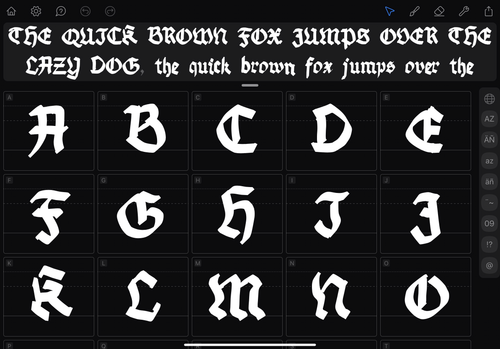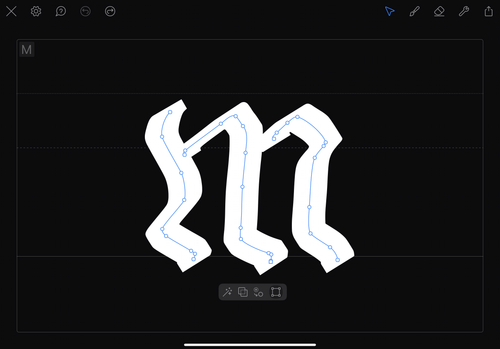
Q&A Fontself
It seemed interesting to us to make you discover the profiles of our guests. Discover Franz Hoffman & Francis Chouquet’s interview.
Franz Hoffman is a designer-turned-entrepreneur and cofounder of Fontself — born from Hoffman's belief that typography is a powerful medium that should be democratized. As a creative who was frustrated by the complexity of typographic tools, Franz started an independent research project in 2005 to explore how modern software and new graphic technologies could better serve the needs of other designers.
Francis Chouquet is a type designer and lettering artist whose everyday work focuses on typographic illustrations for outdoor, sport and mental health apparel. He draws on influences from American lettering styles from the 40’s to the 70’s, with an emphasis on joyful, funky, and deconstructed forms.
Interview
What does a usual day look like for you?
Franz Hoffman A couple minutes of breathing exercise to slowly activate each part of the body. A small trick to get started without rushing straight into the day. The first and the last parts of the day are usually checking user requests on the support channels: I just love having these daily conversations with our user community. As for the rest of the day, I don’t have any routine (I actually loath routines) Not the most productive way to work, but I learned to just “vibe working”: doing whatever seems right at whatever time.
Francis Chouquet I need a coffee first and then I go for a small hike with my dog. The first thing I do is create. I am most creative in the morning, so I take the first part of the day for me, for being creative. So I draw or I paint. But no computer involved. Then, around 11AM, I check emails and social medias and spend the rest of the day on different projects.
How would you describe your style of working?
Francis Chouquet I try to not work from home because it mixes personal and pro life. So I have a studio and sometimes I also go in town to cafés. It feels a bit like socialising) I do listen to music a lot while working and my favourite musics will be jazz and ambient electronic music. It really helps me to be in the zone. I prefer working by myself because I can control every stage of a design. But having good feedback or input on the work I do is really important too.
Franz Hoffman I like complete freedom: that's the best set up for me. I can't help but to switch from a desk in my home office to the kitchen table, or even lay my laptop on the floor in the living room, and then go brainstorming by walking in the forest next to my place. I don't mind working in bars or trains either, as the surrounding noise creates a bubble in which I can totally focus. I usually listen to music whenever I need to go into the creative flow, specially for visual design. Electro-rock, electro-punk or wtf songs are usually my fav picks.
“Every tool has its own intended purpose, but we believe that creatives can be actually quite imaginative in how they use or subvert various tools to create their own typefaces.”‍
– Franz Hoffman
What do you do to step away from work?
Franz Hoffman Cooking for family & friends, martial arts & freeform dancing are vital to me to power the body, the mind & the spirit.
Francis Chouquet Oh yeah, I have to step away every day, I go hiking, I run a lot, but mostly I try to spend a maximum of time in nature.
What drives you to create new typefaces or lettering work?
Francis Chouquet Something fun to do. If I see a nice lettering work, something a bit special, I want to try to turn it into a font. And make special things like ligatures, different character sets, etc.
Franz Hoffman So our goal at Fontself is simply to help anyone who wants to turn their individual qualities into a unique typeface. This is an infinite pool of creative content, and with my cofounder Mohamed Ghenania, we dedicate our work to unearth it with this beautiful medium that is typography.
Francis Chouquet, key screens of the Fontself application, © Fontself
Do you ever feel “too comfortable” with your work?
Francis Chouquet Oh no, I never feel too comfortable, I try to be as much as I can in a zone where I feel confident enough to do a good work but where I can also try new things. I have doing the same things all over again.
Do you find social media or other information sources to be useful for your own creative process?
Francis Chouquet I try to avoid checking the news because it makes my anxiety raise. Over the time I also learned to focus on my own work and not get disturbed creatively by trends on social medias. But I check my Instagram timeline daily and bookmark everything that could inspire me. I closed my Twitter account recently and just use Instagram even if lately I tend to not post that much. The link between my community and me seems a bit broken due to the constant change of algorithms. So now I focus more on my newsletter which is on Substack. It gives me a window to give news but also and mostly share my process and thoughts.
Franz Hoffman I try stay away from mainstream media like TV, online shows or social media (not easy one) and try to favor books and long-form articles that provide more depth, to get into the weeds of things. Social media platforms have broken their promise over the years so we are far less active nowadays both professionally and personally. As it's now a constant race to capture attention, we prefer focusing our efforts on our users needs, and to ensure they can truly enjoy an app that they would wanna recommend to their friends.
In what ways do you see the type market evolving today?
Francis Chouquet To me, it seems that the lettering market felt down in the recent years. The trend is a bit over. I still have many projects in outdoor industry but overall it is not as good as it used to be, 7 or 8 years ago. And for fonts, I feel like the market is saturated with choice. And with subscriptions like Adobe Fonts, it is difficult to indépendant foundries to thrive.
Franz Hoffman As more and more people can start crafting their own fonts, we believe there could be a Renaissance in DIY typefaces, not only in terms of shapes, but also for new use cases.
Are you rather one of those who draw or redraw type classics, or those who seek to totally invent new forms?
Francis Chouquet I don’t do type classics. I prefer experiment new forms and shapes. Try things weird. And see if it works. I am more of an artist so yes, it is all about experimenting new things.
How do software tools and their rules shape type design today? Do you think AI will change this?
Francis Chouquet Software are just tools to me. I use mostly Fontself (iPad and Illustrator) and Glyphs. And with that combination, it gives me enough freedom to do what I want to do. I don’t think I have the knowledge on AI yet to see how it will impact our jobs.
Franz Hoffman Every tool has its own intended purpose but we believe that creatives can be actually quite imaginative in how they use or subvert various tools to create their own typefaces. Fontself was actually created because we wanted simpler tools that could mimic a more intuitive workflow. But it turned out the people crafted a wider range of typeface designs than we initially thought. AI will change any creative process and type-making won’t be spared by automation, so it's difficult to know how value perception will evolve as well. But crafts, taste and curation will definitely matter in your world where everything is possible, all at once. And as font discovery and distribution will be just as critical as they are today to value content, the story behind each font might become a stronger differentiator in a crowded AI-saturated market.
How can type designers and font software developers influence each other?
Franz Hoffman Professional type designers and consumers have very different needs so we don't believe there’s a one-size-fits-all in terms of font editing software. They are actually even different niches among each audience which could advocate for a wider variety of dedicated font creation tools, but the common challenge is how do you make them financially viable.
Francis Chouquet Working with Fontself, their iPad app really changed many things to me and opened the idea to create a font to many more people. This is really a game changer. It can be useful to type designers in order to start projects, sketching and be a good tool for graphic designers to create handmade fonts for client projects or for side revenues.
Any particular standout projects for specific clients or areas of interest?
Franz Hoffman Some of the most fulfilling projects we've seen from our customers range from personal fonts designed for a single private use like a birthday present, to alien fonts for indie sci-fi novels, typefaces for some Marvel Comics, blockbuster movies, or even social workers who designed custom fonts with teenagers. We’ve also been lucky to take part into impactful projects for the community at large, from the Gilbert font to helping design schools that worked on dyslexia-friendly fonts.
Francis Chouquet I am really involved with the outdoor industry and I love to work with companies on lettering projects where I can share my love for Nature and how it can be important nowadays for our mental health
“Working with Fontself, their iPad app really changed many things to me and opened the idea to create a font to many more people. This is really a game changer.“
– Francis Chouquet
Image courtesy of @jimboberrnaus
What made you choose to pursue a career in design?
Franz Hoffman When I discovered a book about the Bauhaus: it felt amazing to learn that folks had dared combining problem-solving design with fine arts, photography or danse within a tight community. That open-minded approach to anything related to graphic, architecture or physical design was the radical vision that I was looking for in a professional career.
Francis Chouquet As many people, I did draw a lot when I was a kid so it made it logical to pursue a career in that direction.
Who were the teachers, mentors or professionals who had the most impact on you?
Franz Hoffman When I was in art school, there were a couple folks who helped in very different ways. One teacher showed me everything I wanted to fight: elitism, sectarism and dogmatism. And two others showed me everything I wanted to embrace: freedom, independence, and determination to thrive on your own.
Francis Chouquet If talking about lettering and fonts I would say House Industries and particularly Ken Barber.
Do you sketch or draw before moving to digital?
Francis Chouquet I mostly sketch and if I work on a font project, I will go quickly on the iPad to use Fontself to see how my sketches look like and how to develop the rest of the characters.
Franz Hoffman I still do sketches & notes on napkins or bus tickets, and whilst I’d love to have something that truly feels like digital paper, I am at ease on an iPad. But the day someone invents a truly flexible HD e-ink surface one can fold into the pocket, I’ll gladly jump onboard.
Do you have advice for someone who wants to become a type designer or lettering artist?
Francis Chouquet Make something you want to do, you like doing. Don’t think too much about making money. And in a saturated market, it is what makes you different that will make you stand out. The best example to me is James Edmonton from OHno Type.
Franz Hoffman I guess whatever the job you aim for, follow your passion. If you enjoy what you do and are determined to spend as much time as you can to investigate this specific field, you’ll be unstoppable. Learn to try different thing (a lot) and to learn fail (a lot more, it’s part of the learning experience, so don’t be afraid of that one either). And the last piece of advise would to provoke luck: dream big and make sure you put yourself on the right path (get out of your comfort zone, dare to make the extra phone call or go meet people in person, you’d be surprised how these simple things matter in the real world).
What will be the message you would like to convey during your Now25 talk?
Franz Hoffman That font creation is a wonderful way of expressing yourself, and purchasing font creation tools is the best way to ensure the creative community gets a variety of passionate folks to craft such wonderful toys.
Francis Chouquet That making fonts can be fun and funky.